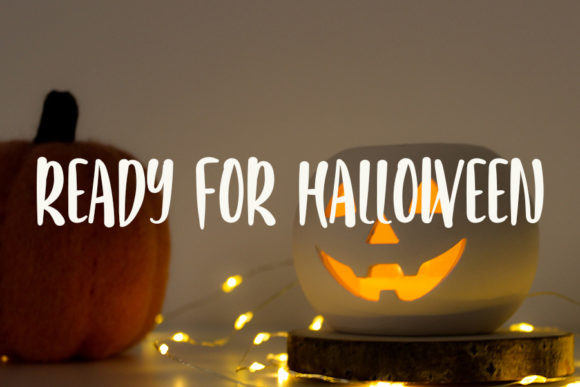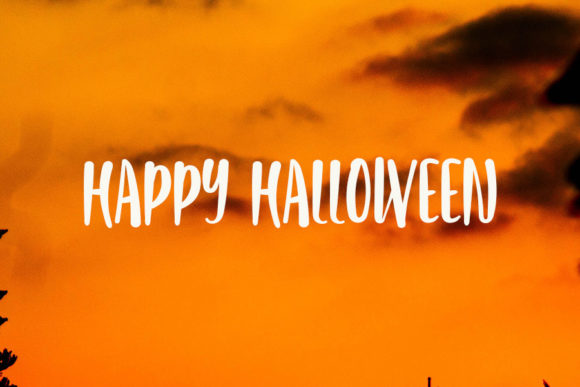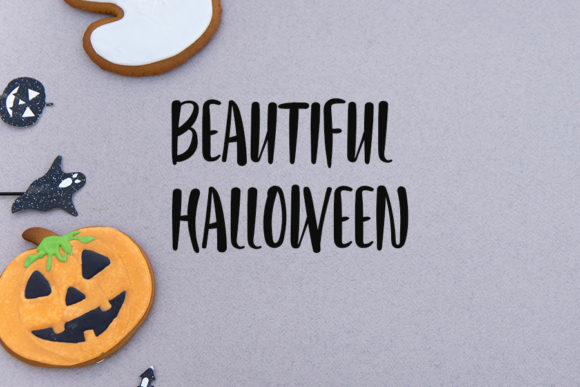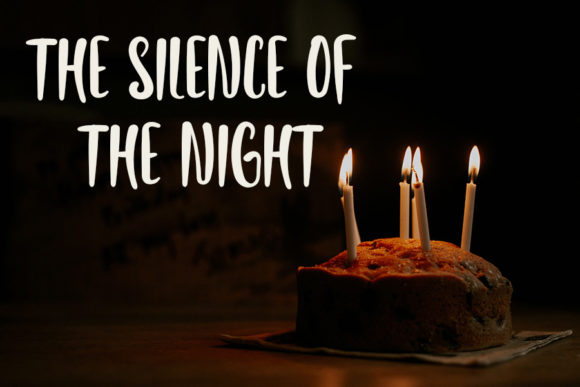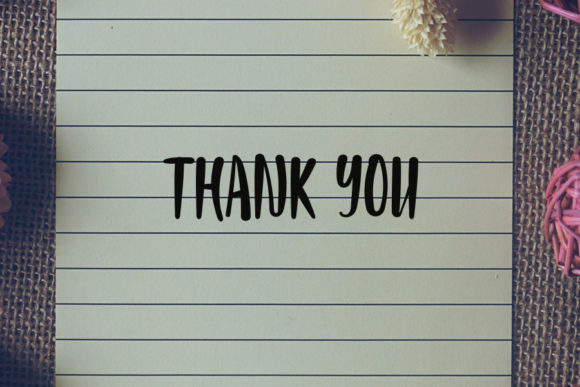
Unleash the Spooky Spirit: A Comprehensive Guide to Halloween Font
As the spookiest time of the year approaches, designers and crafters are on the lookout for the perfect typography to capture the essence of Halloween. Look no further than the Halloween Font, a casual handwritten display font that is sure to become a true favorite. In this article, we’ll dive into the world of Halloween Font, exploring its features, benefits, and uses, as well as provide tips and inspiration for incorporating it into your designs.
What is Halloween Font?
Halloween Font is a carefully crafted display font that combines the elegance of calligraphy with a modern, fresh twist. Its casual, handwritten style makes it perfect for a wide range of design projects, from Halloween-themed invitations and decorations to branding and advertising materials. With its unique blend of classic and contemporary elements, Halloween Font is sure to add a touch of sophistication and whimsy to any design.
Key Features of Halloween Font
- Classy Calligraphic Influences: Halloween Font boasts a beautiful, flowing script style that evokes the elegance of traditional calligraphy.
- Contemporary and Fresh: Despite its classic influences, Halloween Font feels modern and fresh, making it perfect for designers looking for a unique and on-trend typography solution.
- Casual and Handwritten: The font’s casual, handwritten style gives it a friendly, approachable feel that’s perfect for a wide range of design applications.
- Highly Versatile: Whether you’re designing invitations, posters, or social media graphics, Halloween Font is a highly versatile typography solution that can be used in a variety of contexts.
Benefits of Using Halloween Font
So why choose Halloween Font for your design projects? Here are just a few benefits of using this amazing font:
- Adds a Touch of Elegance: Halloween Font’s calligraphic influences add a touch of sophistication and elegance to any design, making it perfect for high-end branding and advertising materials.
- Creates a Spooky Atmosphere: With its Halloween-themed design, this font is sure to create a spooky and festive atmosphere that’s perfect for the spookiest time of the year.
- Easy to Read: Despite its decorative style, Halloween Font is highly legible and easy to read, making it perfect for use in body text and other applications where readability is key.
- Customizable: As a digital font, Halloween Font can be easily customized to suit your design needs, from adjusting the size and color to adding effects and textures.
Using Halloween Font in Your Designs
So how can you incorporate Halloween Font into your designs? Here are a few ideas to get you started:
- Halloween Invitations: Use Halloween Font to create spooky and festive invitations for Halloween parties and events.
- Social Media Graphics: Add a touch of Halloween spirit to your social media graphics with Halloween Font, perfect for creating spooky and engaging content.
- Branding and Advertising: Use Halloween Font to create eye-catching branding and advertising materials, from logos and posters to flyers and brochures.
- Crafting and DIY Projects: Halloween Font is also perfect for crafters and DIY enthusiasts, from creating spooky signs and decorations to making handmade cards and gifts.
To get the most out of Halloween Font, here are a few tips and inspiration to keep in mind:
- Experiment with Colors: Halloween Font looks amazing in a range of colors, from bold and bright to muted and pastel. Experiment with different colors to find the perfect look for your design.
- Add Texture and Effects: Add texture and effects to Halloween Font to give it a more distressed or vintage look, perfect for creating a spooky and atmospheric design.
- Mix and Match Fonts: Don’t be afraid to mix and match Halloween Font with other fonts and typography styles to create a unique and eye-catching design.